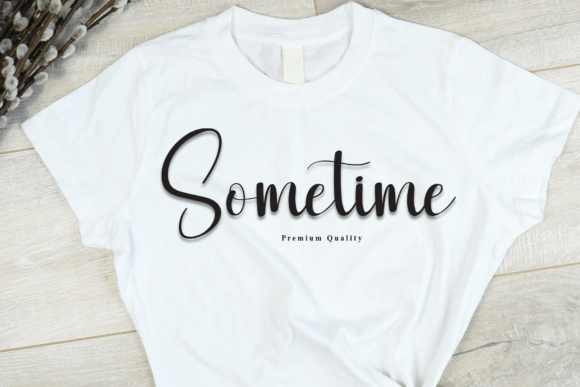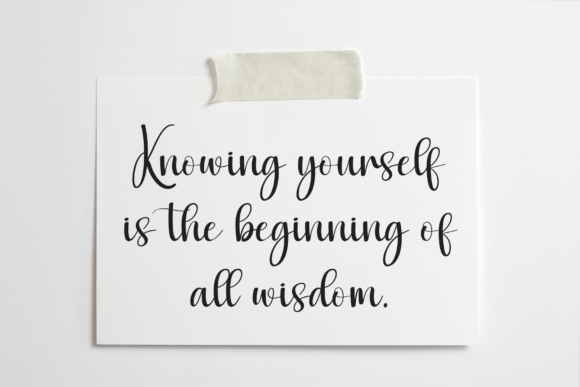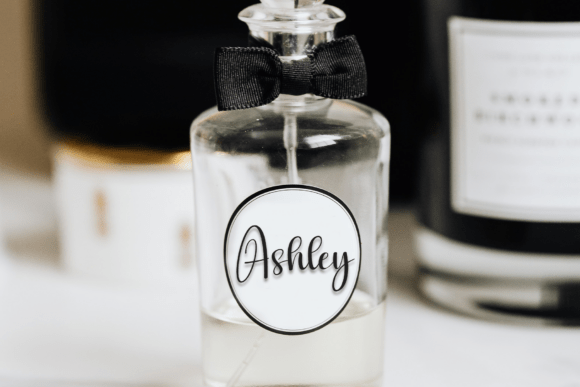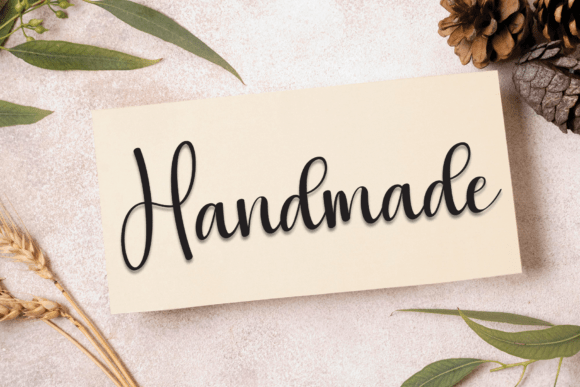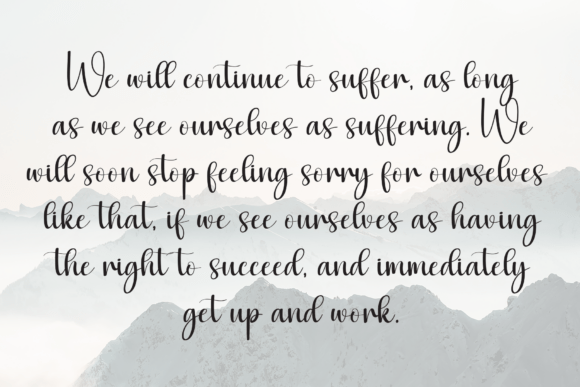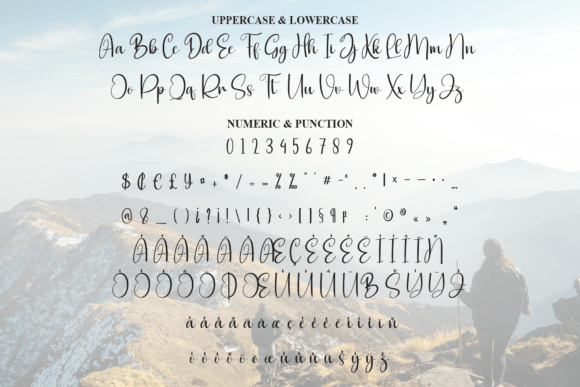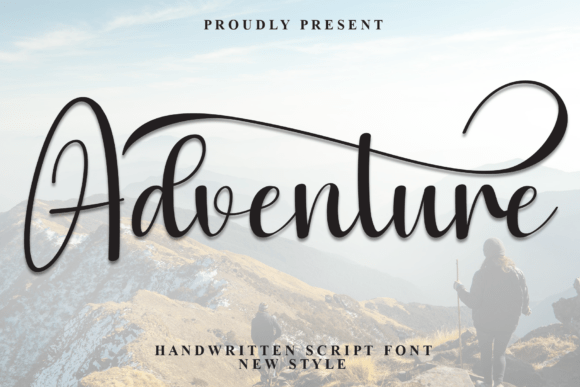
Introducing Adventure Font: Elevate Your Designs with Elegance and Charm
Are you on the lookout for a font that can add a touch of sophistication and modern flair to your designs? Look no further than Adventure Font, a stylish handwritten script font that is sure to elevate your projects to new heights. With its flowing strokes and organic curves, Adventure Font brings warmth and refinement to any design, making it perfect for a wide range of applications, from branding and invitations to social media and more.
The Characteristics of Adventure Font
Adventure Font is a true standout in the world of typography, boasting a unique blend of elegance and modern charm. Its key characteristics include:
- Flowing Strokes: Adventure Font features smooth, flowing strokes that give it a dynamic and organic feel.
- Organic Curves: The font’s curves are carefully crafted to bring a sense of warmth and approachability to your designs.
- Handwritten Script: As a handwritten script font, Adventure Font has a personal and refined touch that is perfect for adding a touch of sophistication to your projects.
- Modern Flair: With its clean lines and contemporary feel, Adventure Font is sure to add a modern twist to any design.
Uses for Adventure Font
Adventure Font is incredibly versatile, making it suitable for a wide range of design applications. Here are just a few ideas to get you started:
- Branding: Use Adventure Font to create a unique and memorable brand identity that sets you apart from the competition.
- Invitations: Add a touch of elegance and sophistication to your invitations, whether you’re planning a wedding, birthday party, or other special event.
- Social Media: Use Adventure Font to create eye-catching social media graphics, posts, and stories that are sure to engage your audience.
- Packaging: Add a personal touch to your product packaging with Adventure Font, making it stand out on store shelves.
Why Choose Adventure Font?
With so many fonts to choose from, why should you choose Adventure Font for your next project? Here are just a few reasons:
- Unique Style: Adventure Font has a unique and distinctive style that is sure to set your designs apart from the crowd.
- Ease of Use: This font is incredibly easy to use, even for those with limited design experience.
- High-Quality: Adventure Font is a high-quality font that is designed to deliver exceptional results, whether you’re working on a print or digital project.
- Versatility: As mentioned earlier, Adventure Font is incredibly versatile, making it suitable for a wide range of design applications.
Tips for Using Adventure Font
To get the most out of Adventure Font, here are a few tips to keep in mind:
- Pair it with Other Fonts: Experiment with pairing Adventure Font with other fonts to create a unique and visually appealing combination.
- Use it in Headlines: Adventure Font is perfect for use in headlines, where its flowing strokes and organic curves can really shine.
In conclusion, Adventure Font is a stylish and sophisticated handwritten script font that is sure to elevate your designs to new heights. With its flowing strokes, organic curves, and modern flair, this font is perfect for a wide range of applications, from branding and invitations to social media and more. Whether you’re a designer, craft, or simply someone looking to add a touch of elegance to your projects, Adventure Font is an excellent choice.